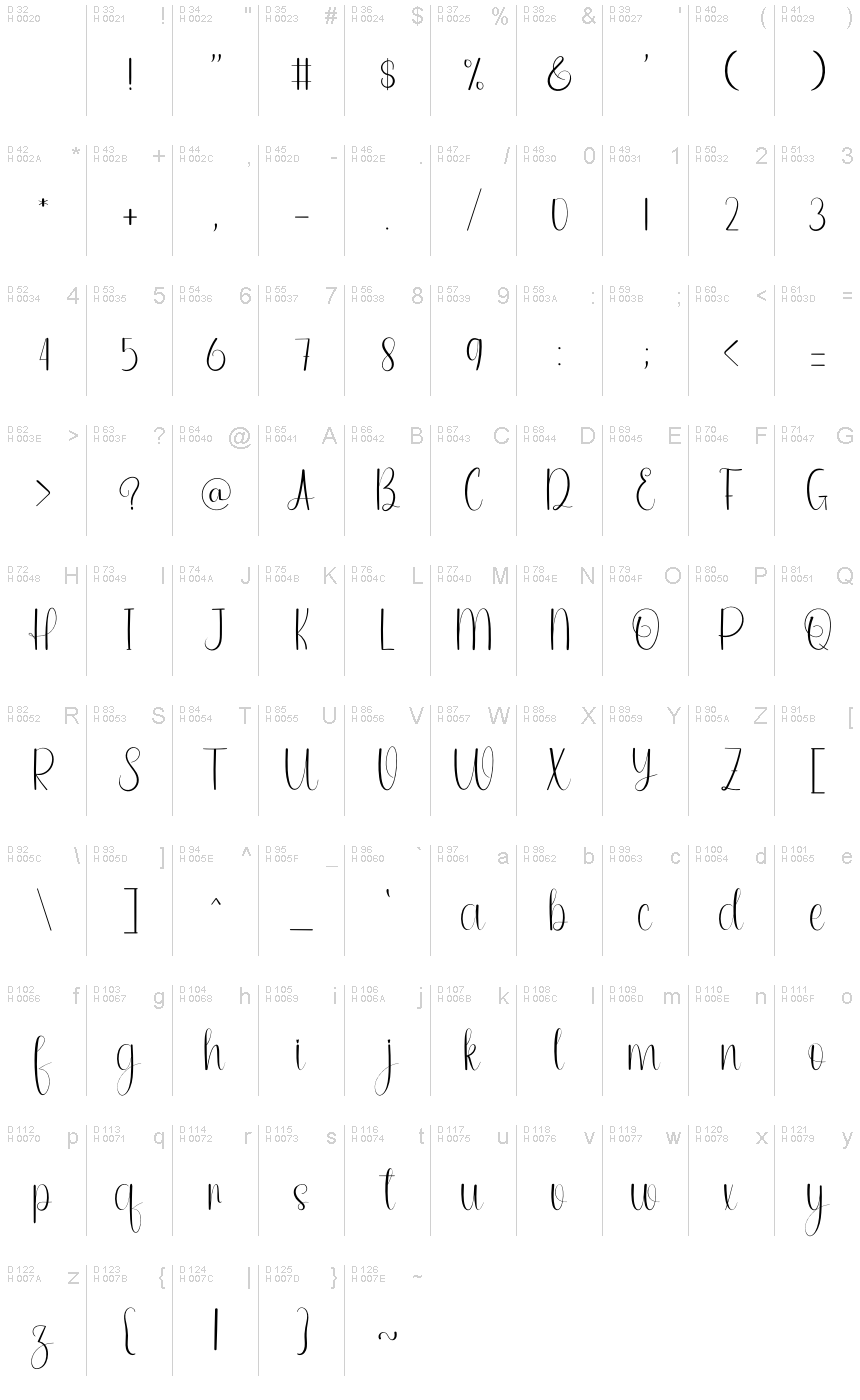
Simple Graduation
Simple Graduation font, crafted by PiPi Creative, embodies a graceful handwritten style with its elegant and light aesthetic. This font captures a charming simplicity that is both approachable and sophisticated, making it ideal for adding a personal touch to your projects.
Designed to evoke a sense of casual elegance, Simple Graduation is perfect for invitations, social media graphics, and branding materials where you seek to convey warmth and authenticity. Its fluid strokes create an inviting presence, ensuring your message resonates with heartfelt sincerity.